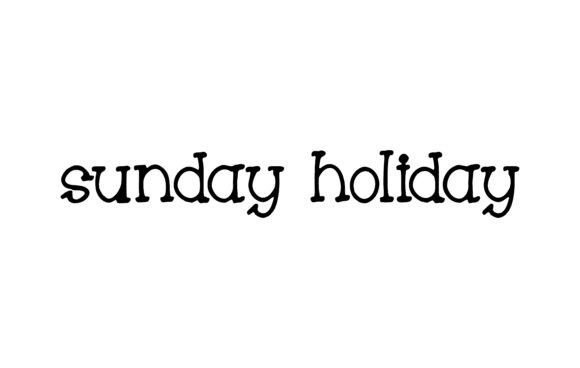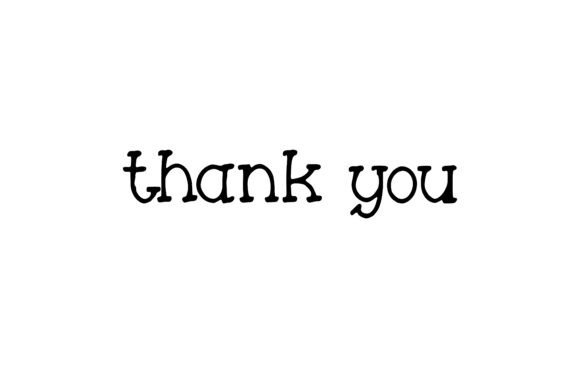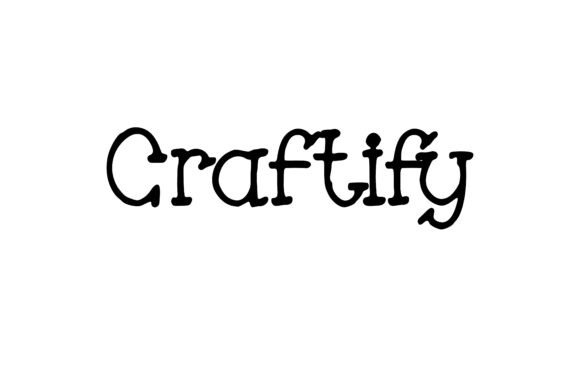
Craftify Font: Elevate Your Designs with a Touch of Romance
In the world of design, fonts play a crucial role in conveying the tone and personality of a project. If you’re a designer or crafter looking for a unique and authentic handwritten font with a romantic touch, look no further than Craftify Font. This beautifully crafted font is designed to take your creative ideas to new heights, making it a true favorite among designers and crafters alike.
The Charm of Craftify Font
Craftify Font boasts a distinctive, hand-written style that exudes warmth and personality. Its romantic touch makes it perfect for a wide range of design projects, from wedding invitations and cards to magazine headlines and social media graphics. The font’s legibility and versatility make it an excellent choice for both title and body text, ensuring that your message is conveyed with clarity and style.
One of the standout features of Craftify Font is its incredible versatility. This font can be used in a multitude of design projects, including:
- Magazine headlines: Add a touch of elegance and sophistication to your magazine covers with Craftify Font.
- Social media graphics: Make your social media posts stand out with this beautiful, eye-catching font.
- Branding: Use Craftify Font to create a unique and memorable brand identity that sets you apart from the competition.
- Wedding invitations: Add a romantic touch to your wedding invitations and save-the-date cards with this gorgeous font.
- Cards and stationery: Create beautiful, one-of-a-kind cards and stationery with Craftify Font.
Why Choose Craftify Font?
So, what sets Craftify Font apart from other fonts on the market? Here are just a few reasons why designers and crafters love this font:
- Authentic handwritten style: Craftify Font boasts a genuine, hand-written look that adds a personal touch to any design project.
- Romantic touch: This font’s romantic undertones make it perfect for projects that require a touch of elegance and sophistication.
- Legible and versatile: Craftify Font is designed to be easy to read, making it perfect for both title and body text.
Tips for Using Craftify Font
To get the most out of Craftify Font, here are a few tips to keep in mind:
- Experiment with different sizes and colors: Play around with different font sizes and colors to find the perfect combination for your design project.
- Pair with other fonts: Combine Craftify Font with other fonts to create a unique and visually appealing typography scheme.
- Use in combination with images: Pair Craftify Font with beautiful images to create stunning graphics that capture the eye.
In conclusion, Craftify Font is a beautiful, authentic handwritten font with a romantic touch that’s perfect for designers and crafters looking to elevate their designs. With its versatility, legibility, and ease of use, this font is sure to become a favorite among creatives. Whether you’re working on a magazine headline, social media graphic, or wedding invitation, Craftify Font is the perfect choice for adding a touch of elegance and sophistication to your design projects.